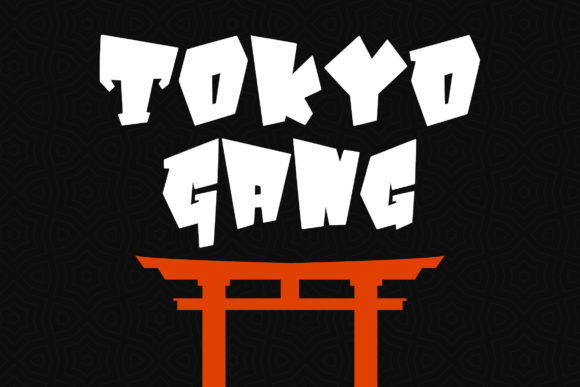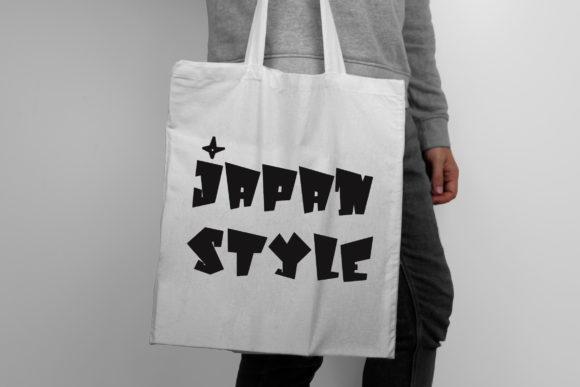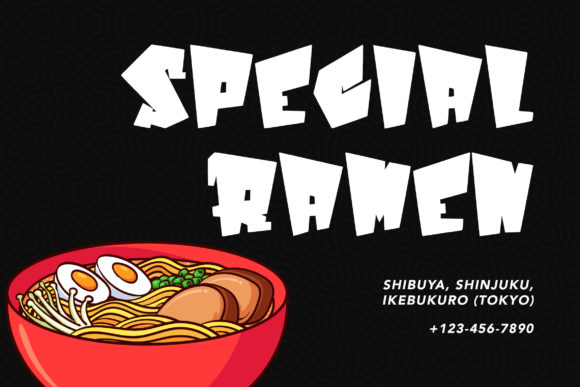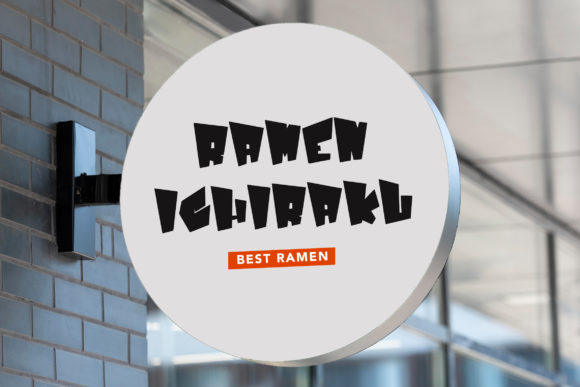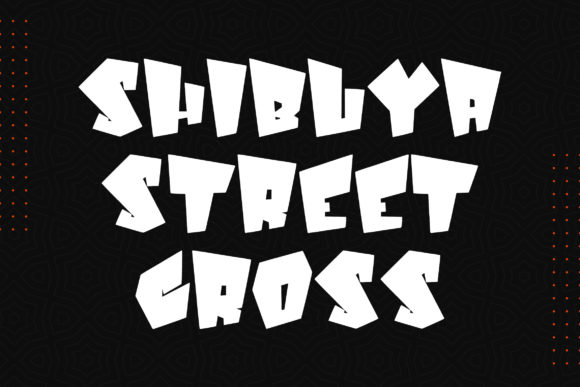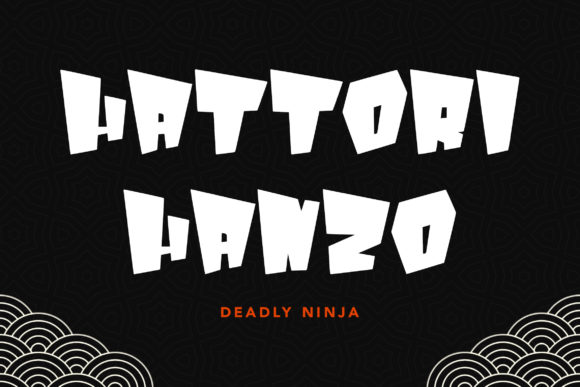
Introduction to Ninja Quest Font
You’re brainstorming ideas for a high-quality design project, and suddenly the perfect concept hits you – a vibrant poster or logo that demands attention. The next step is finding the perfect design resource to bring your vision to life. That’s where the Ninja Quest Font comes in, a Japanese-inspired display font that’s sure to add a unique, comic-like twist to your creative project.
As designers, we’re always on the lookout for fonts that can elevate our designs and give them that extra wow factor. Ninja Quest Font delivers on that promise, with its bold, thick lettering and wide range of glyphs and swashes. Plus, with its PUA encoding, accessing all the glyphs is a breeze, making it an ideal choice for designers looking for a hassle-free experience.
Ninja Quest Font
- High-quality design resource ideal for creative projects, featuring a unique ninja-inspired aesthetic.
- Features a range of 12 characters, including letters, numbers, and special symbols, making it suitable for various design applications.
- Perfect for designers and artists working on projects that require a touch of ninja-inspired flair, such as video games, comics, and graphic novels.
Honest Review: Ninja Quest Font
I recently came across the Ninja Quest Font, and I’m excited to share my thoughts on this design resource. As a designer, I’m always on the lookout for high-quality fonts that can elevate my creative projects.
- Unique and creative design: The Ninja Quest Font has a distinct style that sets it apart from more common fonts.
- Transparent background: The font’s transparent background makes it easy to use in a variety of design scenarios.
- Limited character set: The font’s character set is somewhat limited, which may be a drawback for designers who need a wider range of characters.
- Not suitable for body text: The font’s design makes it more suitable for headings and titles rather than body text.
Overall, I’m impressed with the Ninja Quest Font’s unique design and versatility. While it may have some limitations, it’s a great resource for designers looking to add a touch of creativity to their projects. If you’re looking for a high-quality font for your next design project, the Ninja Quest Font is definitely worth considering.
Ninja Quest Font
The Ninja Quest Font is ideal for designs that require a unique and creative touch. Some common use cases include:
- Infographics and data visualization
- Poster and flyer design
To get the most out of the Ninja Quest Font, experiment with different styles and combinations. You can also pair it with other design elements, such as icons and graphics, to create a cohesive look.